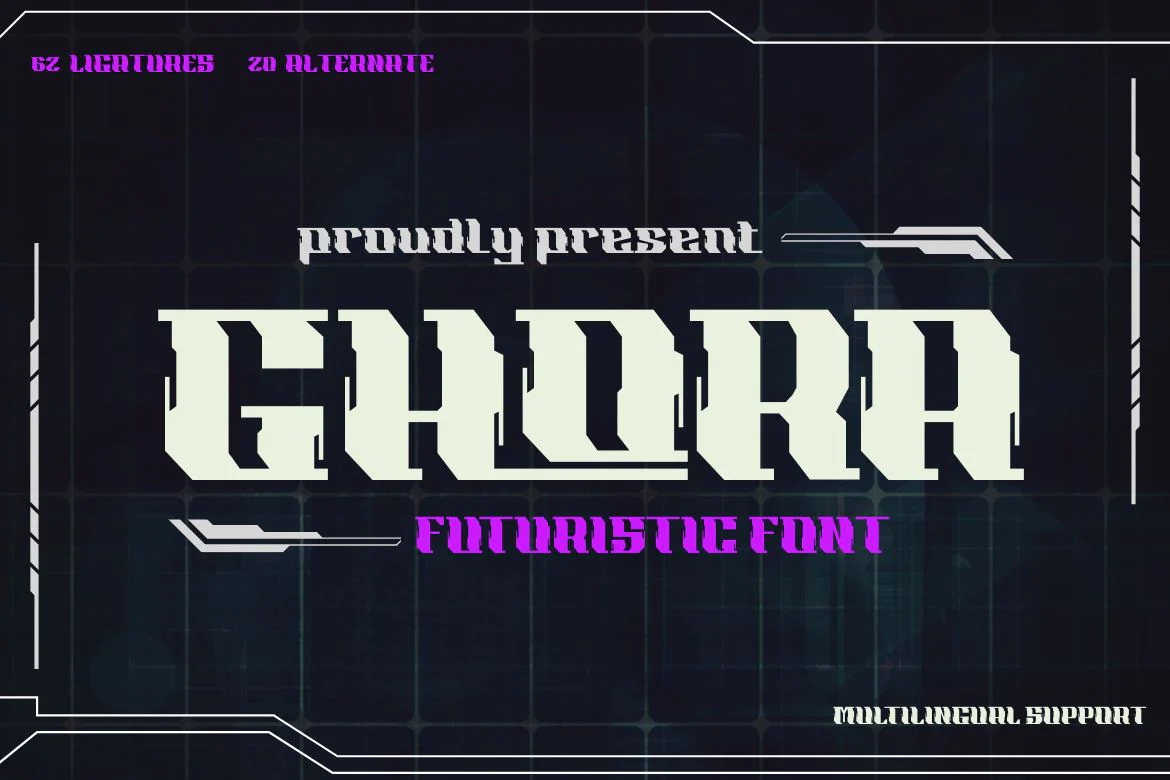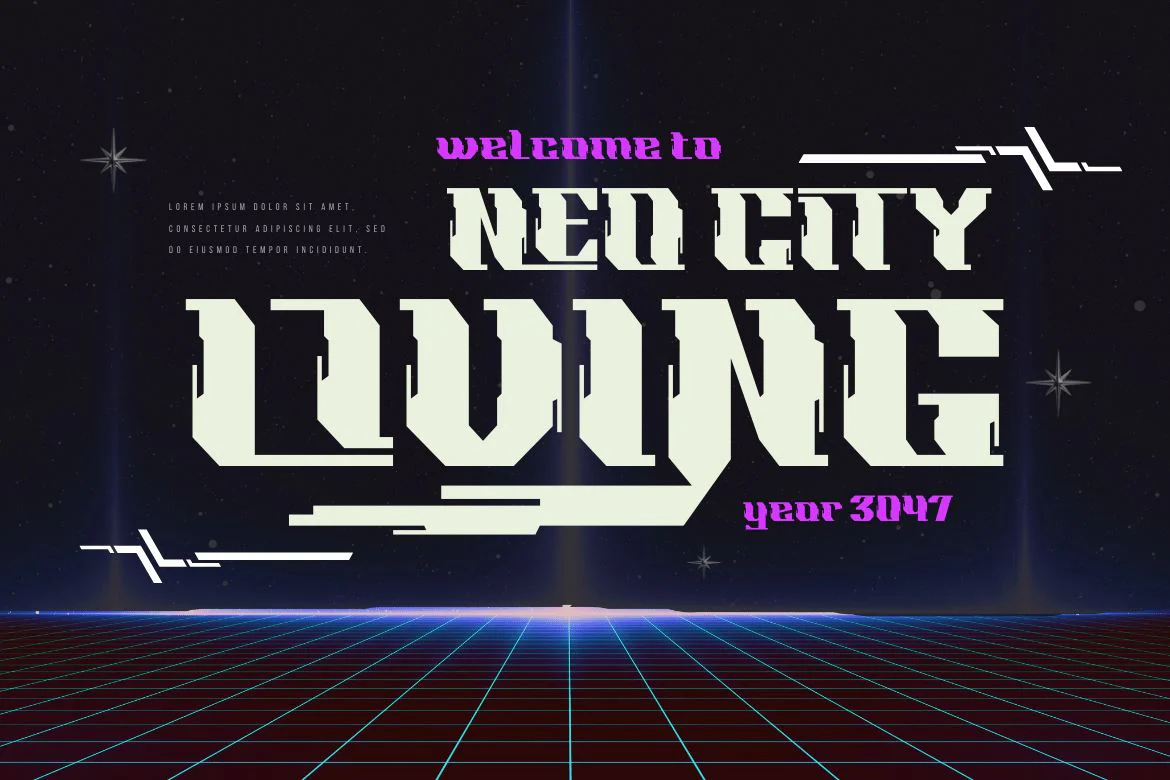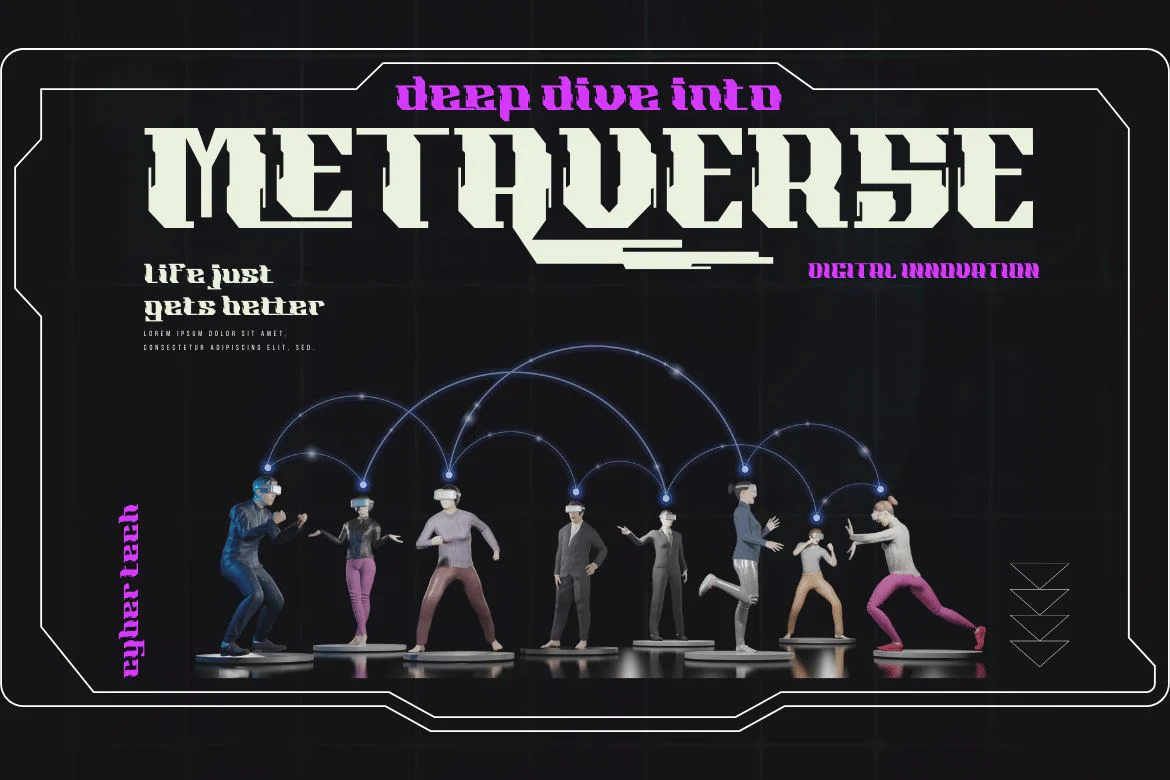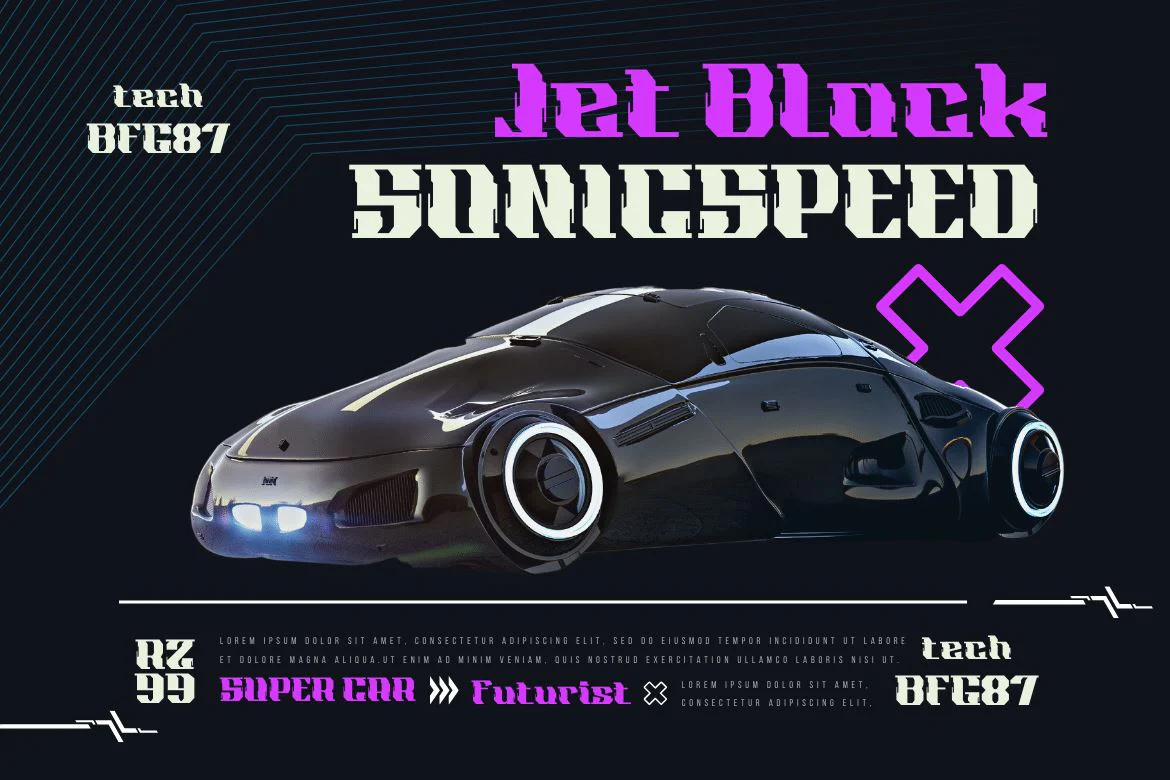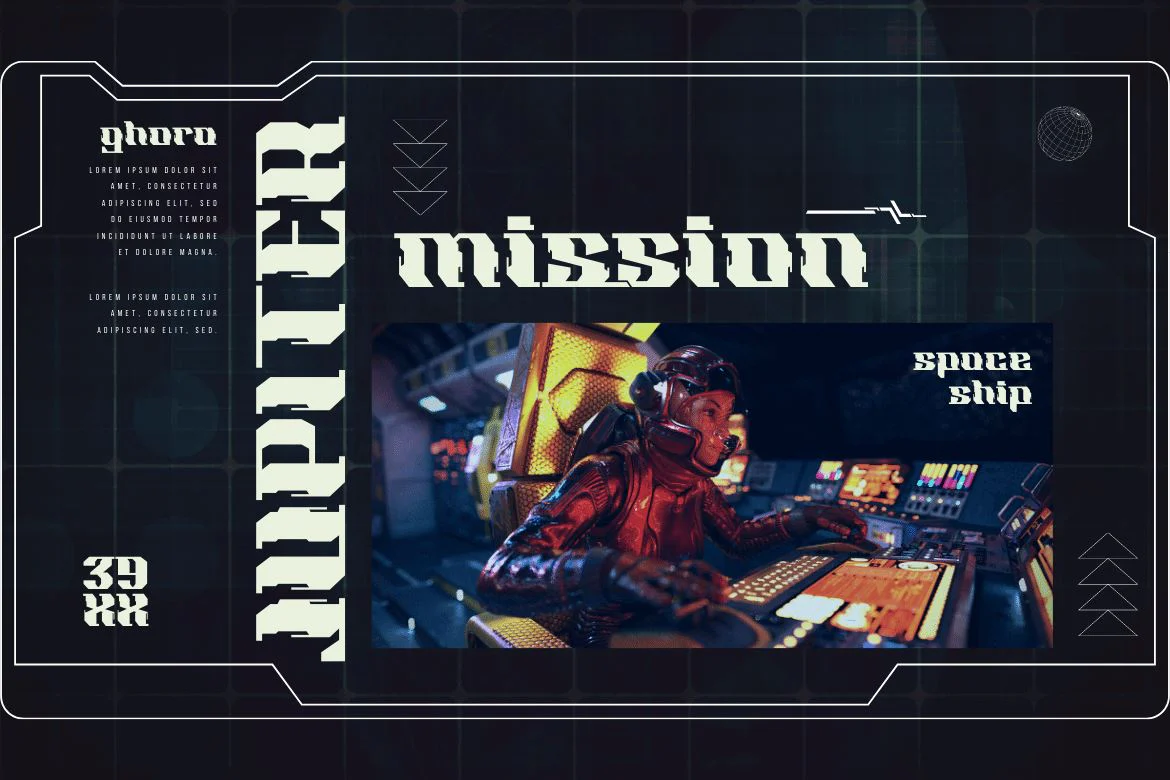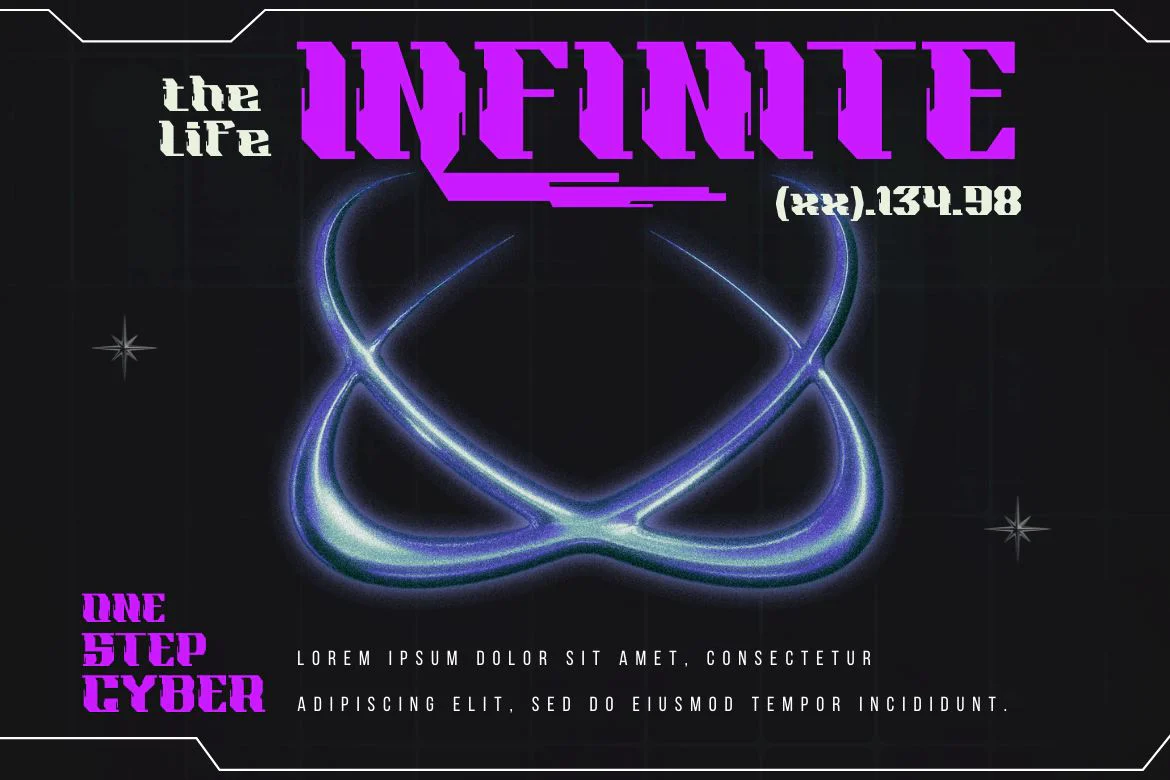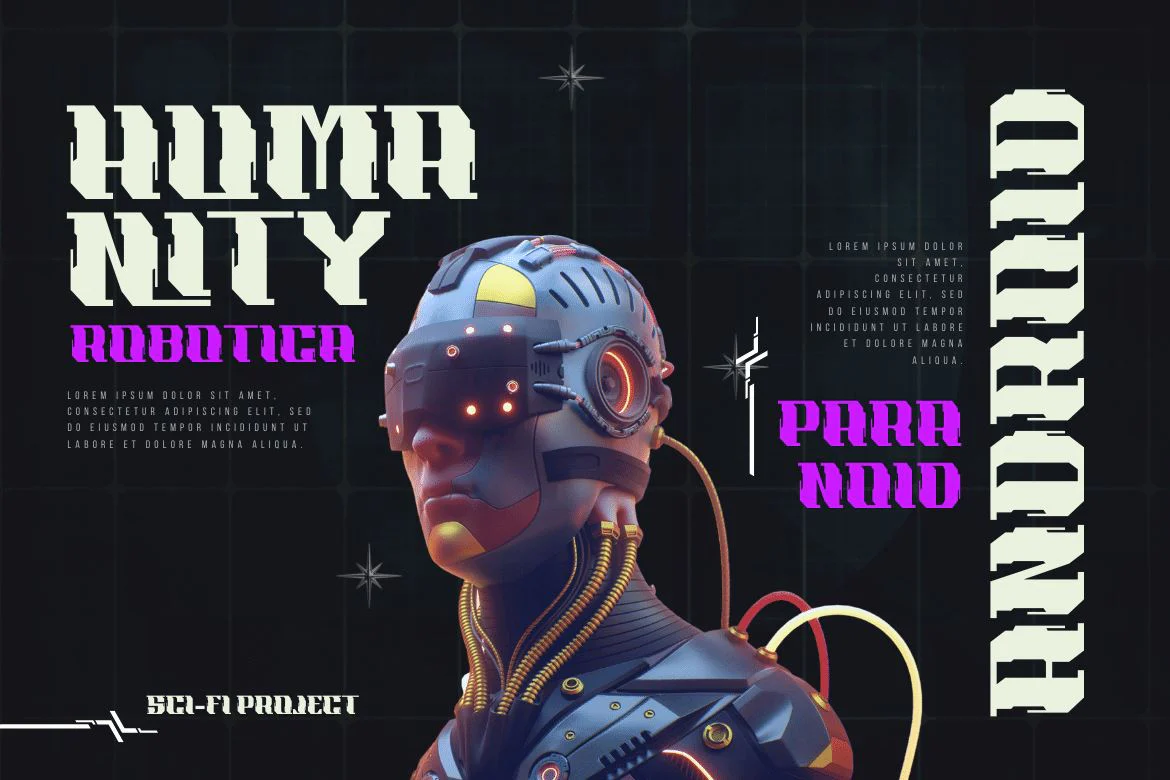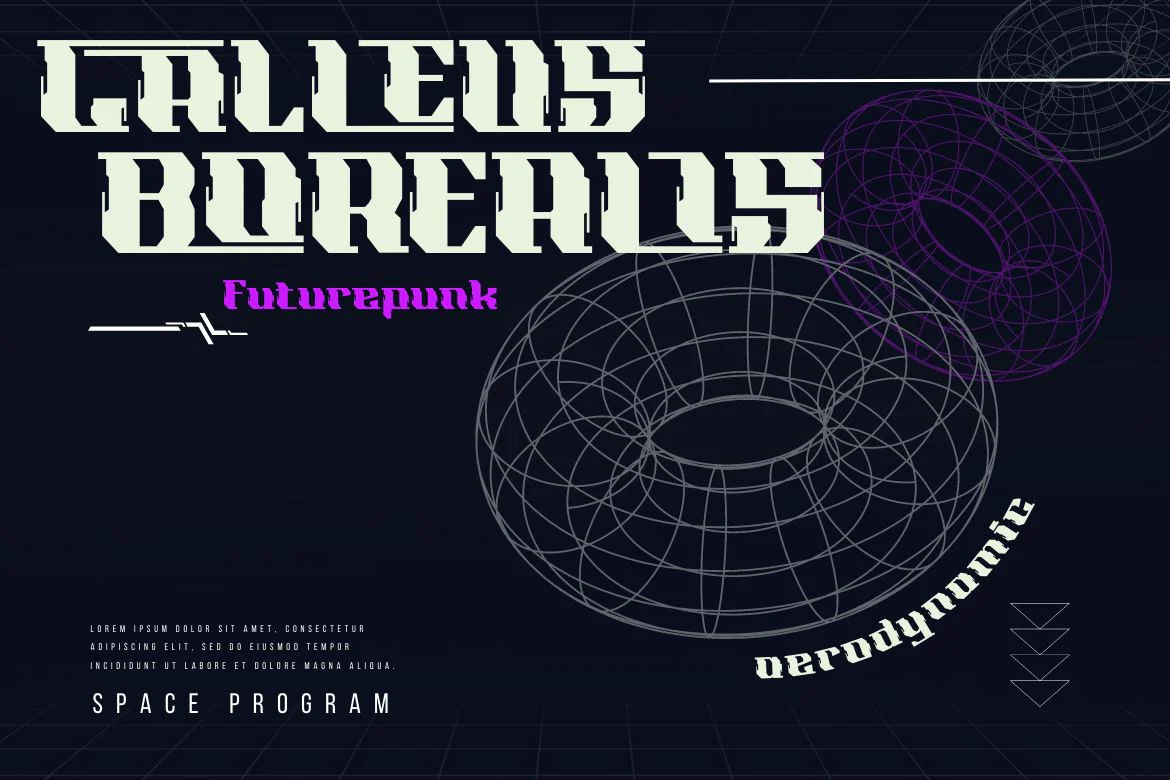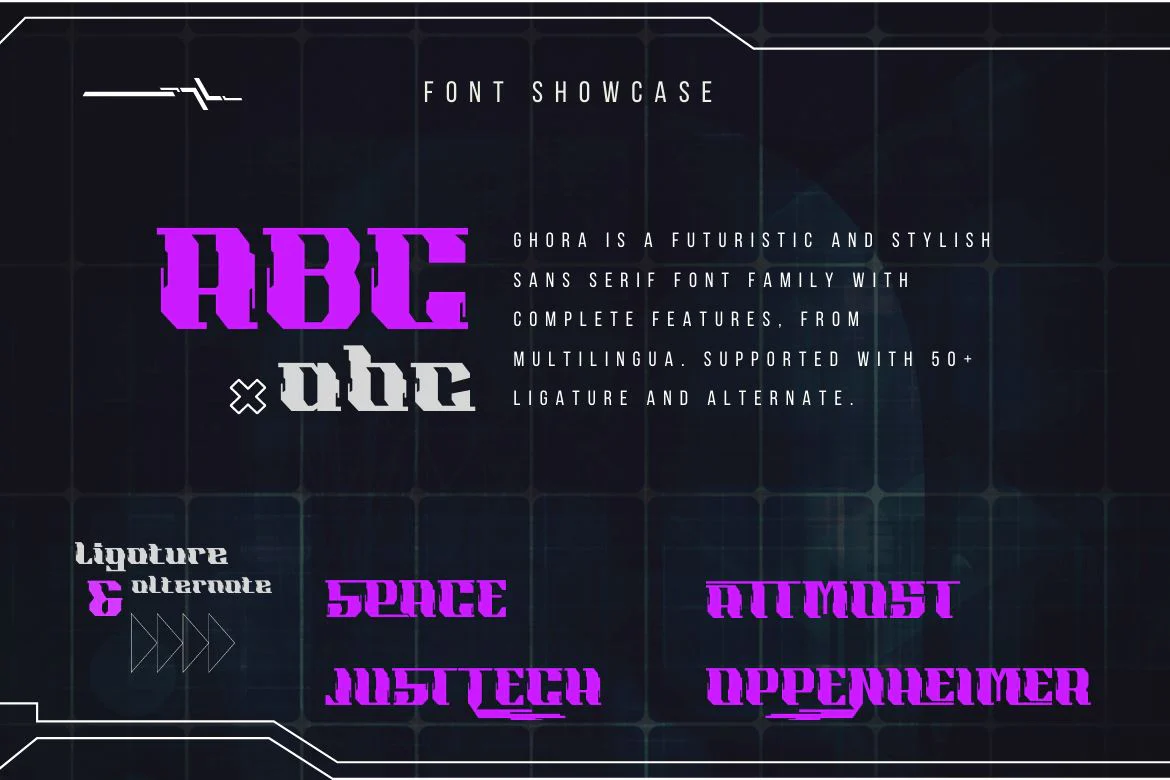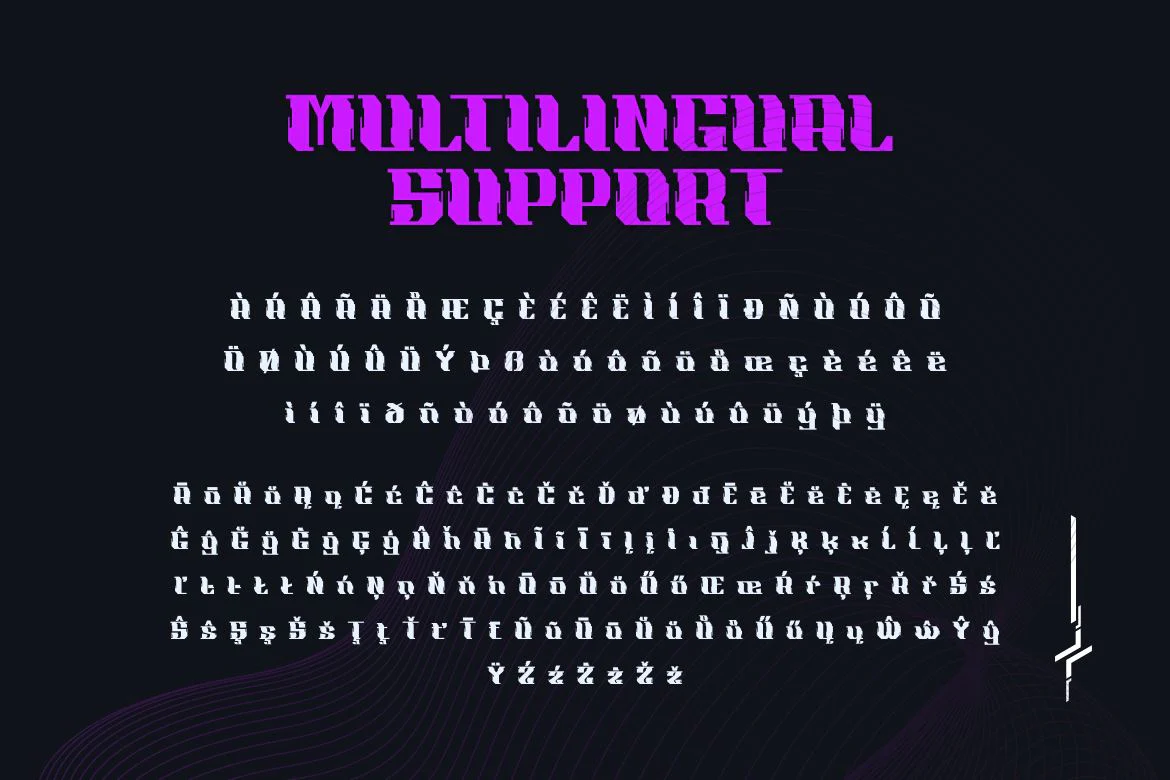
Ghora | Futuristic Font
Do you need a cyberpunk theme? Introducing our newest font called Ghora. A futuristic font that will mark your business as the most unique on the market. Designed with every detail in mind, this typeface has a very futuristic look. You can use this typeface for sci-fi-themed logos, games, movies, posters, designs, and promotional publications.